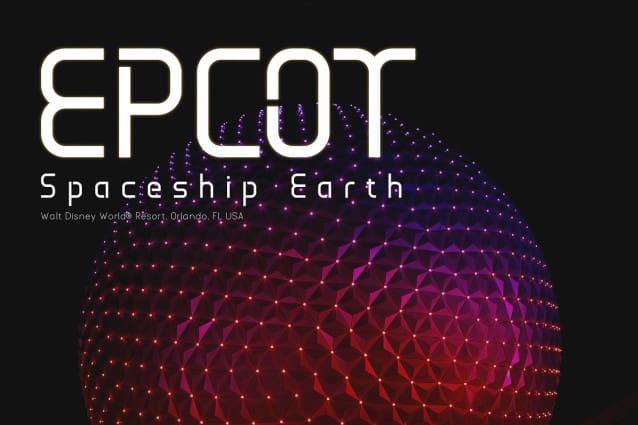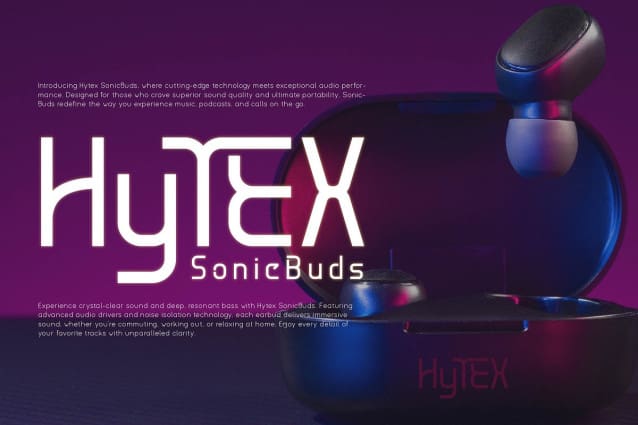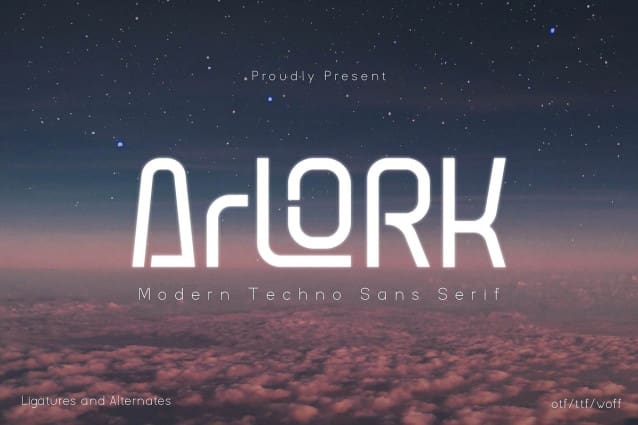
Arlork Font
Arlork Font | Modern Techno Sans Serif, from Denustudios, suitable for any projects such as: logos, branding projects, homeware designs, product packaging, mugs, quotes, posters, shopping bags, t-shirts, book covers, name card, invitation cards, greeting cards, label, photography, watermark, special events, and all your other lovely projects that need a Modern Techno Sans Serif taste.